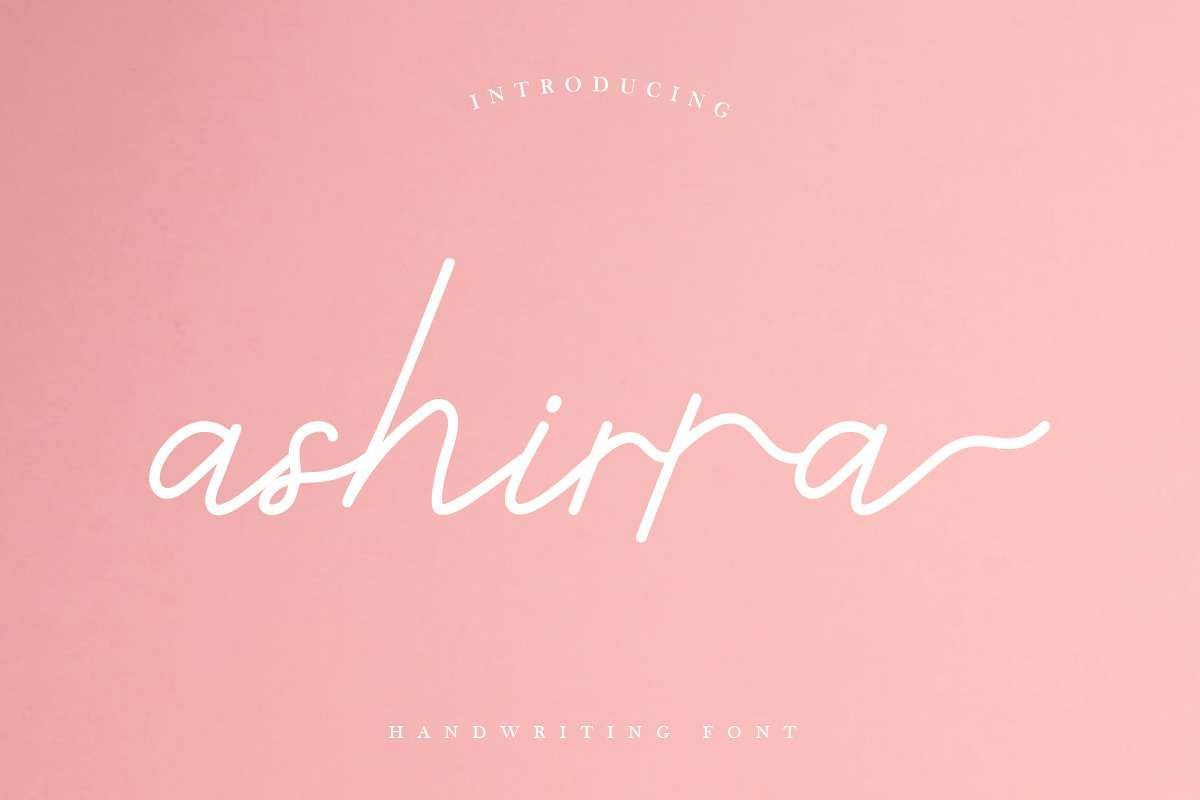
Ashirra
Holla Good Folks…Please meet our new handwriting signature font : AshirraIt’s handcrafted in the day at office here from our studio in WestJava Indonesia. Made with passion, done carefully. Ashirra Handwriting is a simple light font script. It has most of international language characters glyphs.You will get a zip file which has: